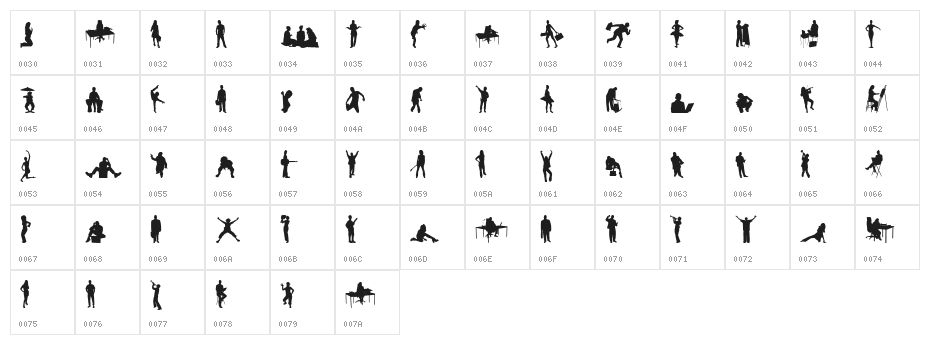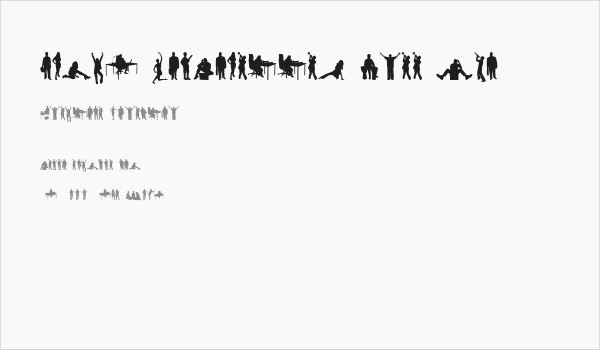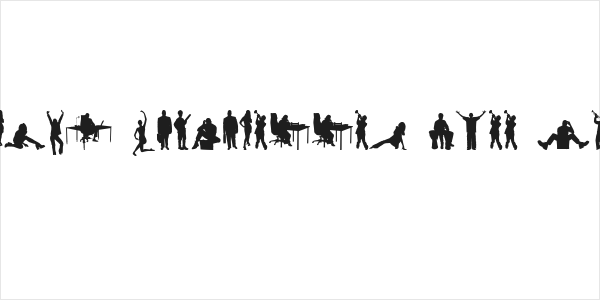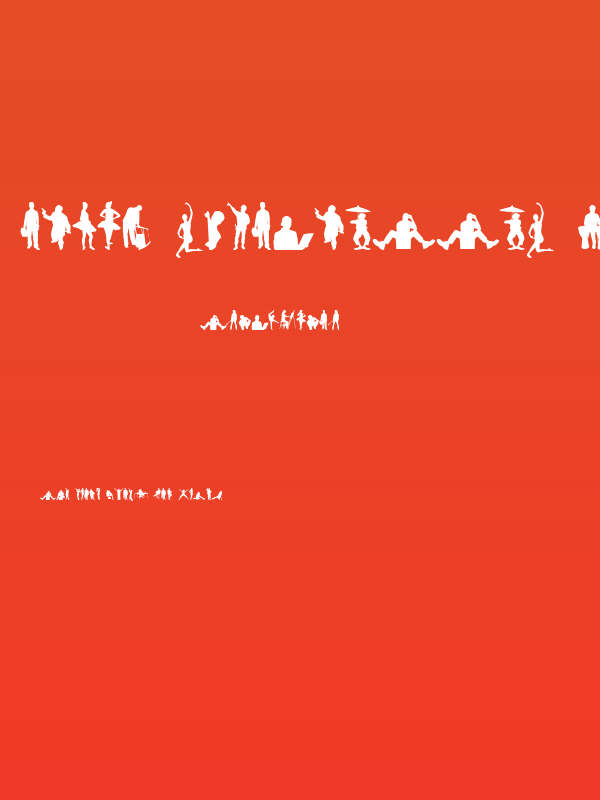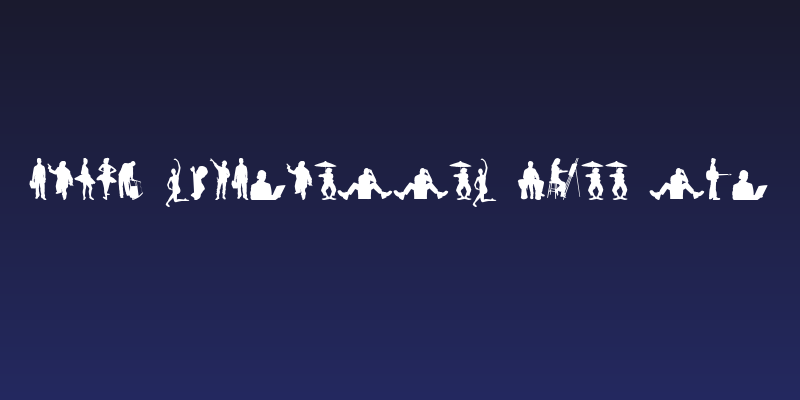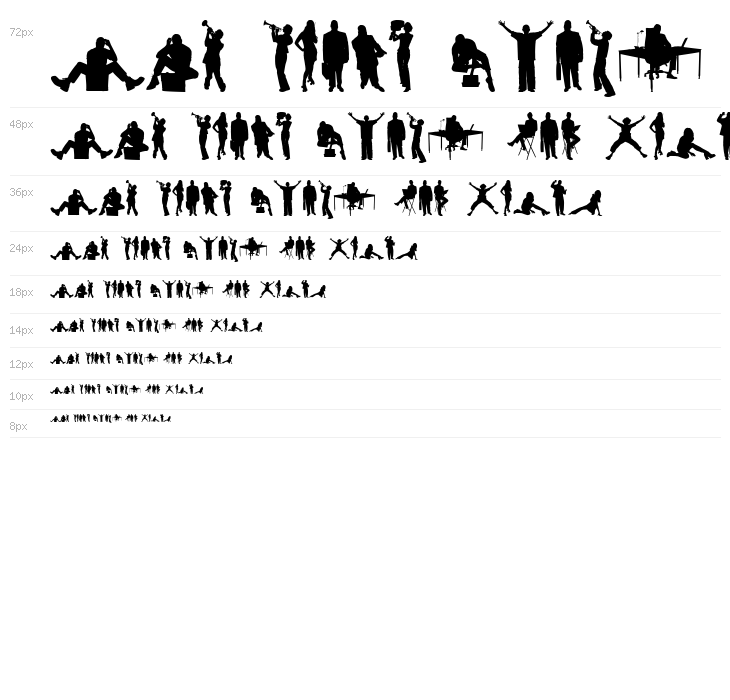
Human Silhouettes Free Two Font
Human Silhouettes Free Two Description
A collection of black human silhouette shapes depicting various poses and activities, including sitting, standing, dancing, working, and interacting with objects.
| Overall Style | Modern, Minimalist |
| Use Case | Icons, Illustrations, Visual storytelling, User interface elements |
| Proposed Projects | Use in graphic design, presentations, infographics, websites, and marketing materials to represent people without detailed features. |